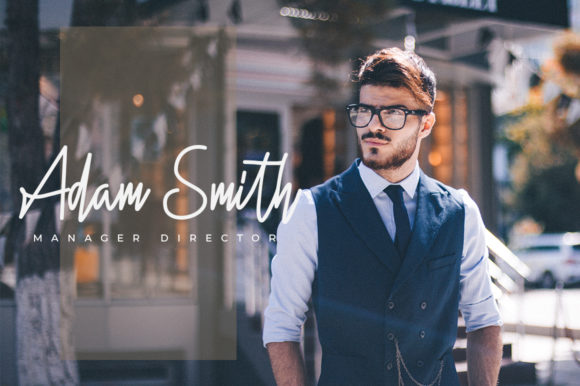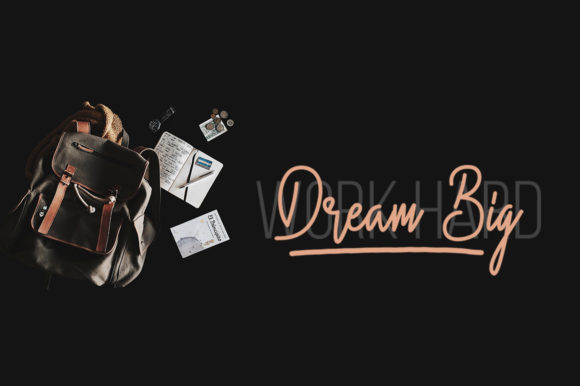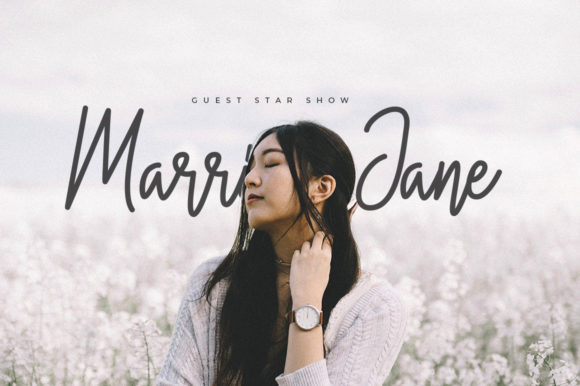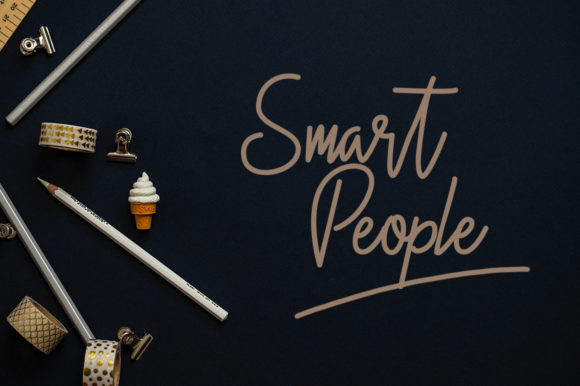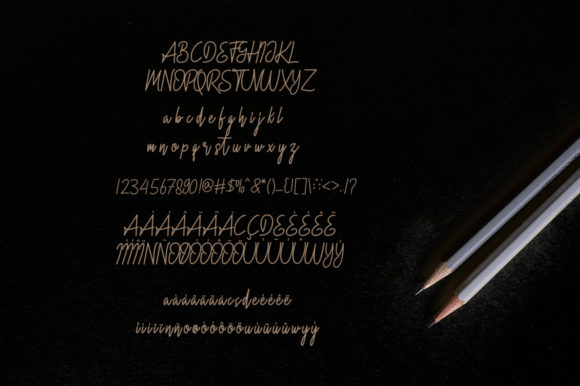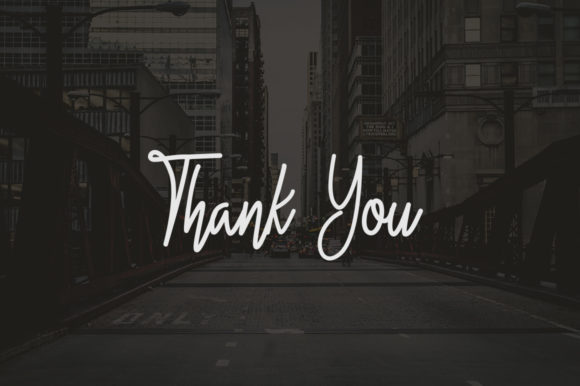
Hidario Font
About Hidario Font
The Hidario is a stylish signature font. It’s luxurious style is perfect for logos, branding, invitations, wedding designs, and much more!